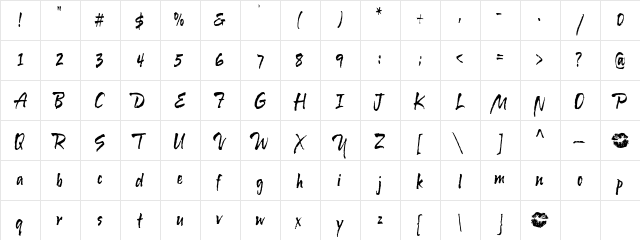
CK S.W.A.K. Regular Font Preview
CK S.W.A.K. Regular
Design Context for CK S.W.A.K. Typeface
CK S.W.A.K. is a composed and adaptable typeface that performs quietly and consistently across a wide range of design contexts.